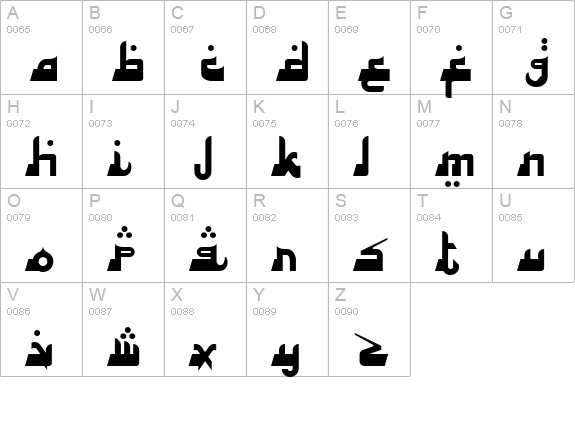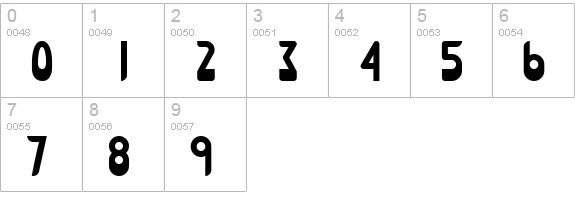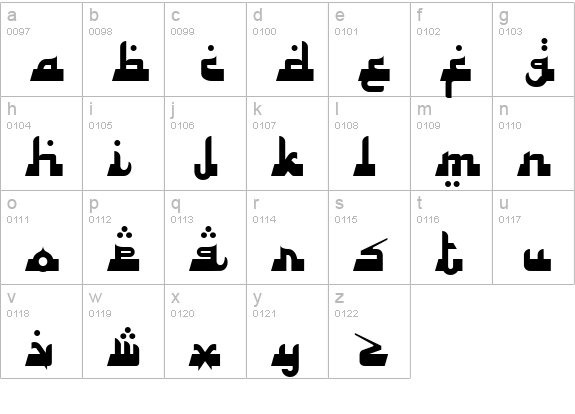
Alhambra Deep Font Details
Alhambra Deep font is a stunning display typeface that exudes elegance and sophistication. With its intricate details and ornate design, this font is perfect for adding a touch of luxury to any project. The elaborate curves and sharp angles of Alhambra Deep font make it a standout choice for headlines, logos, and branding materials. What sets Alhambra Deep font apart is not just its beauty, but also its versatility. Whether you're working on a vintage-inspired design or a modern project, this font will elevate your work to the next level. Its timeless appeal and classic charm will make any text pop and grab the attention of your audience. What's even better is that Alhambra Deep font is available for free download at FontsMarket.com. Now you can add this exquisite typeface to your collection without breaking the bank. Don't miss out on the opportunity to enhance your designs with the beauty of Alhambra Deep font. Download it today and let your creativity shine!